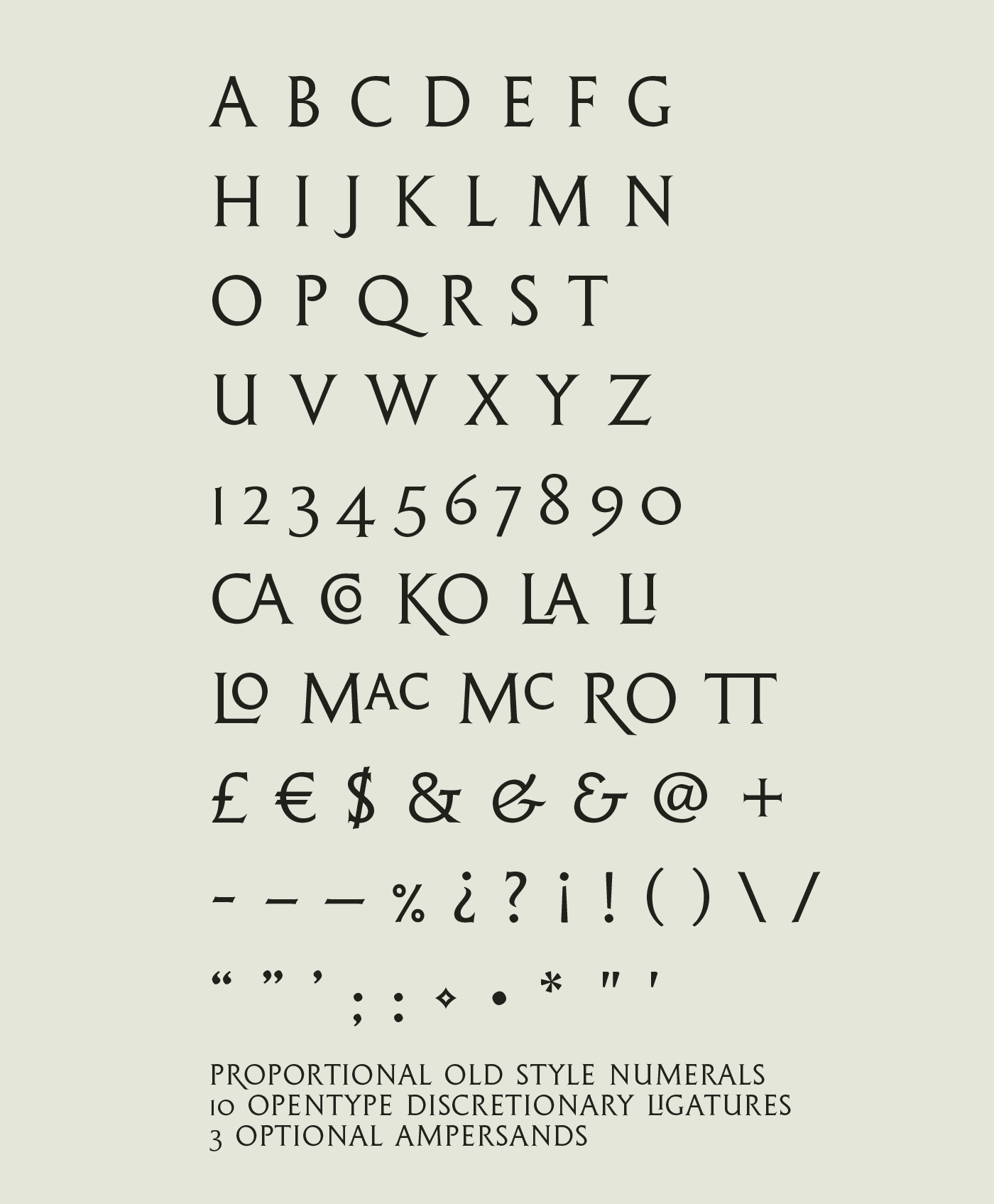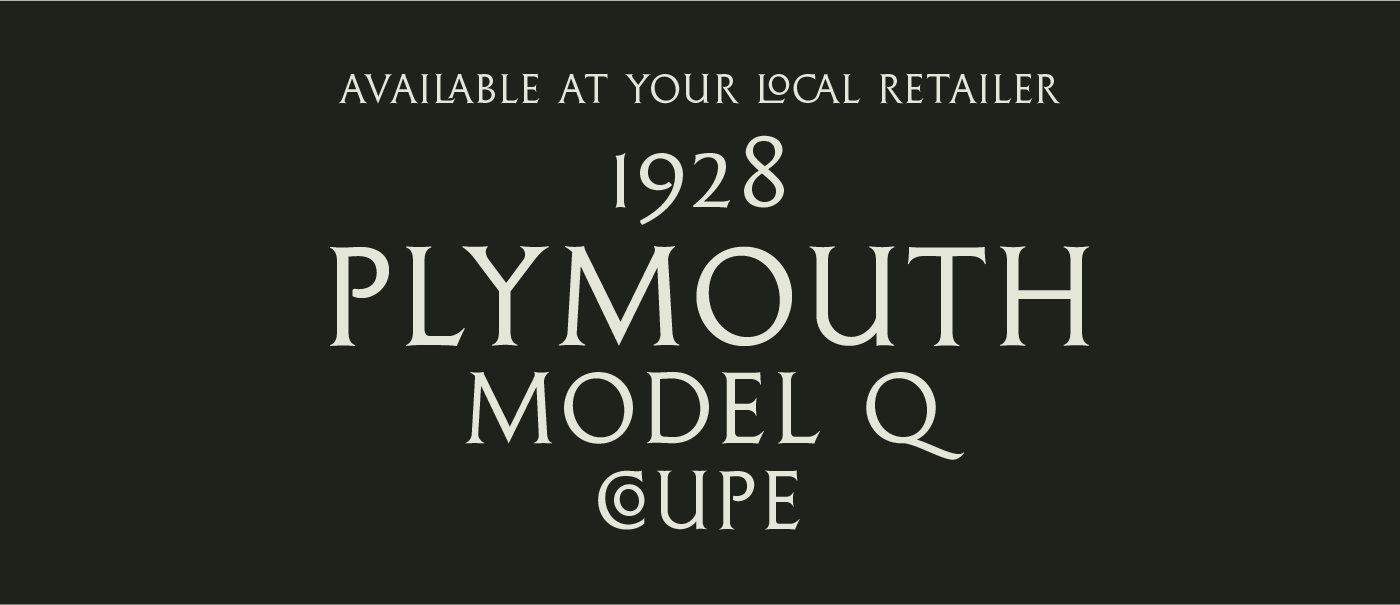
Cenotaph Titling | Free Typeface
Cenotaph is an engraved-style titling face which draws reference from inscriptions done by Eric Gill - most notably in the vertical stem in the 'U'. In OpenType format it contains 10 discretionary ligatures useful for stylistic and practical spacing purposes, as well as 3 alternate ampersands and proportional old style numerals. This first iteration of the typeface is free for personal and commercial use. Download it here.